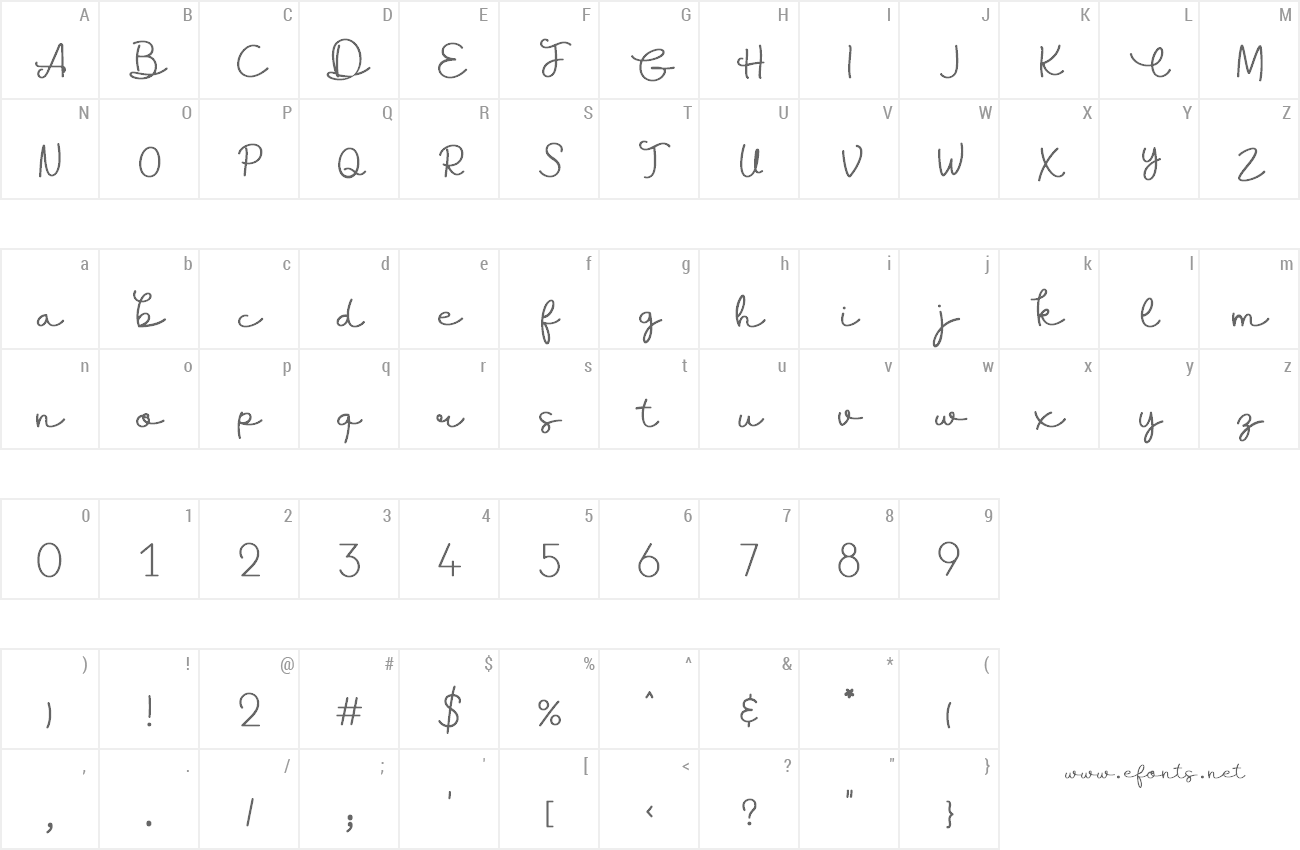
This is Lifestyle, our newest handwritten font. It comes with loads of contextual alternates, initial & terminal forms, ligatures and more which sums up to an incredible amount of 600 glyphs. Each letter is handdrawn and then reshaped to match them all together. The full version comes with a commercial license (valid for companies with up to 10 members) and gives access to all glyphs and a cool vector pack! Visit www.shapedfonts.com/lifestyle for more information. NOTE: This font is free for personal use only. If you want to use it commercially, please buy a license on our website: www.shapedfonts.com/lifestyle |